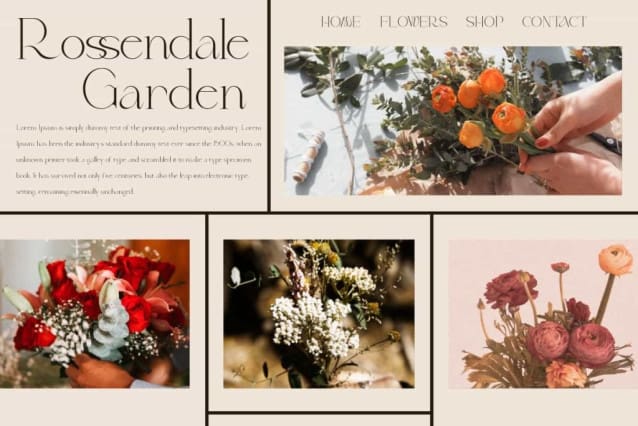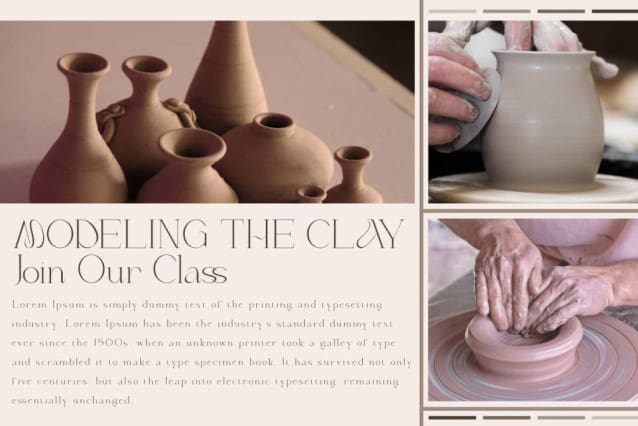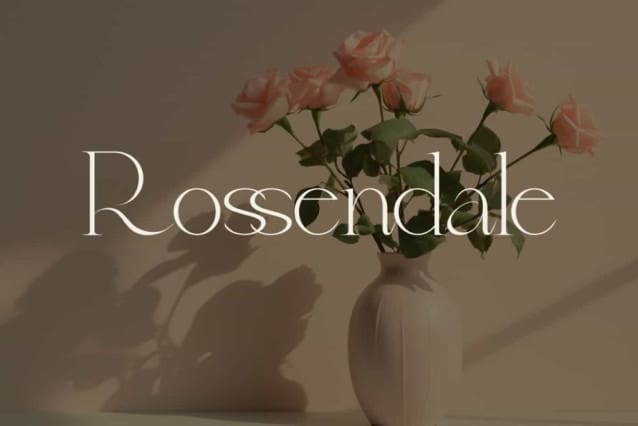
Rossendale Font
Rossendale Font is a delicate and deluxe serif display font inspired from classic theme. This font has thin and feather-like lines that give it a clean look. It will suits many designs, such as cover, custom design, gift box, invitation, label, poster, product packaging, quotes, screen printing, signage, stationery, title, website, and more!
Rossendale Font includes full set of Uppercase and Lowercase Basic Characters, Numerals, Punctuation, and Symbol. This font has an elegant appearance that can make your design look luxurious and will be perfect for many industries, such as accessories and jewelry, advertising, beauty product, event or wedding organizer, fashion, florist, furniture, perfume, resort, restaurant, etc.